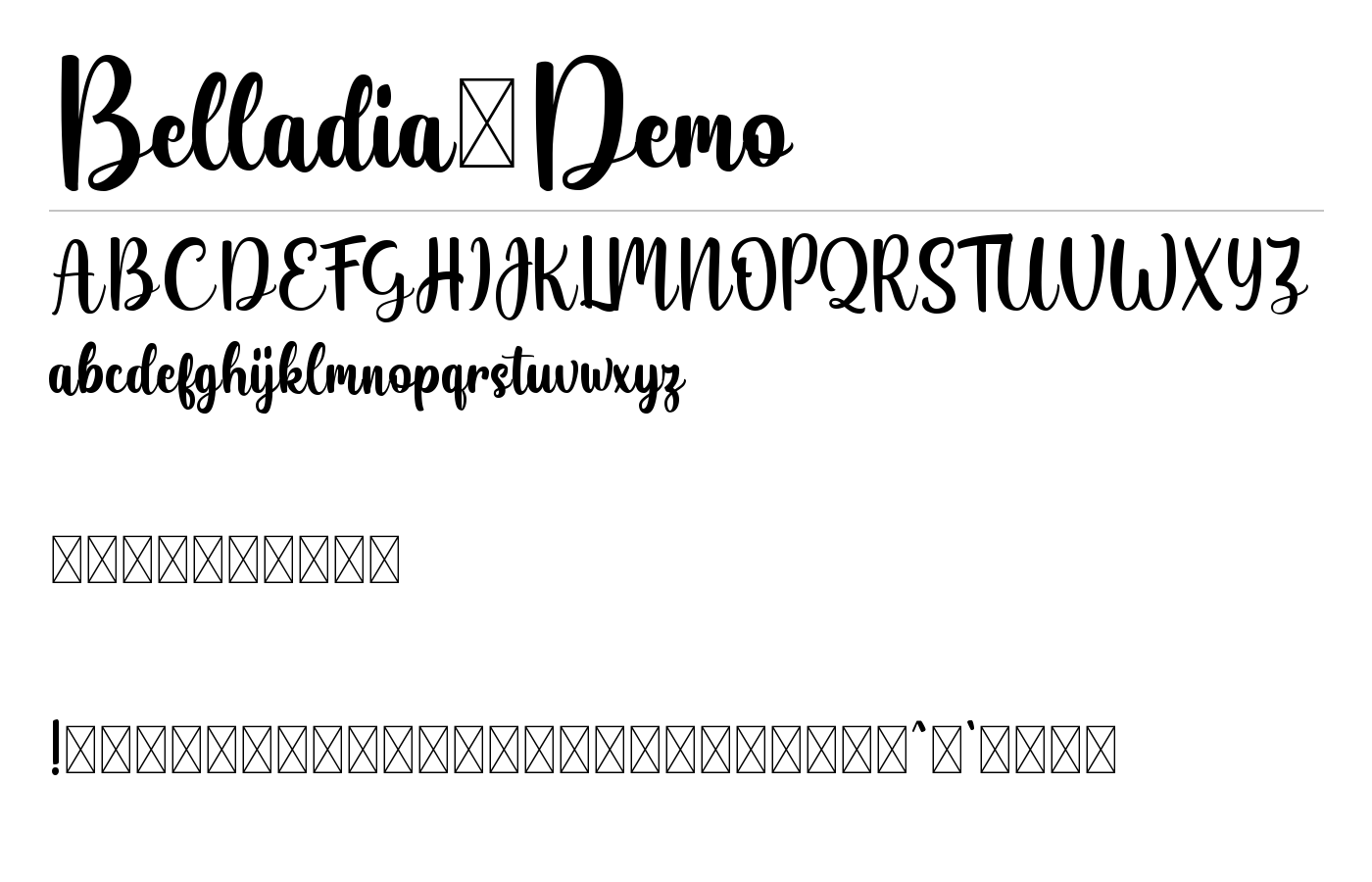
Belladia-Demo is a charming script font that combines playful, rounded strokes with an elegant handwritten style. Its smooth, fluid lines and moderate weight make it perfect for adding a friendly yet sophisticated touch to branding, invitations, and headlines. This font works well in creative and casual design contexts where a personal, approachable feel is desired.
Belladia-Demo Font
About Belladia-Demo Font
| Designer | Teguh Subiyantoro |